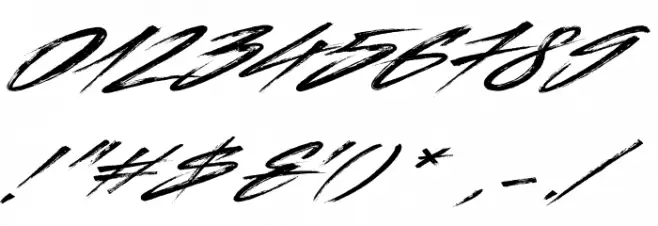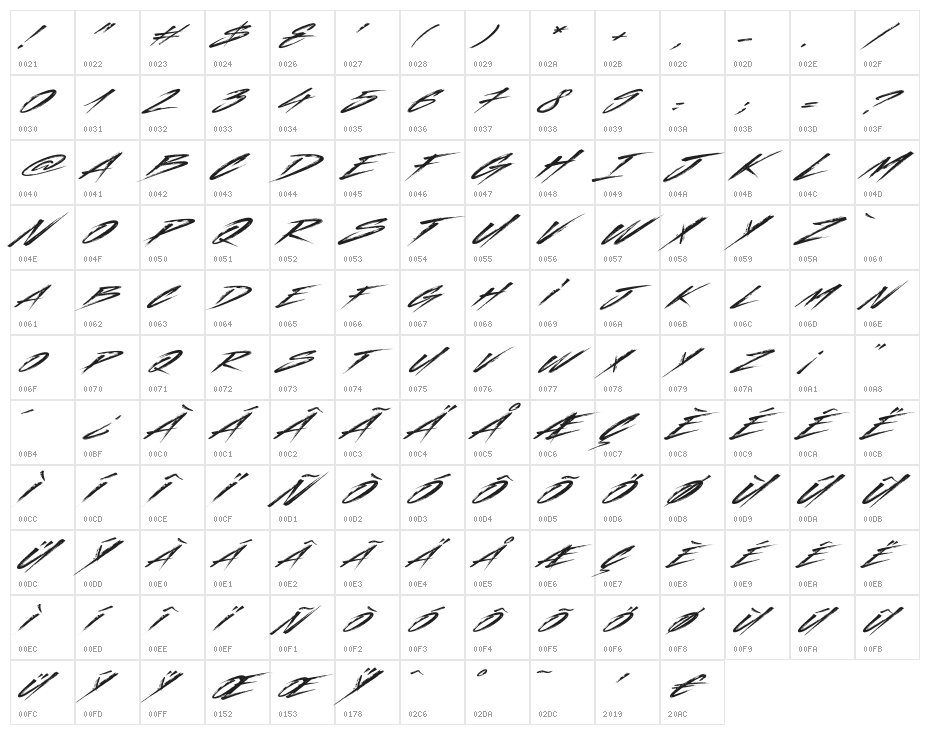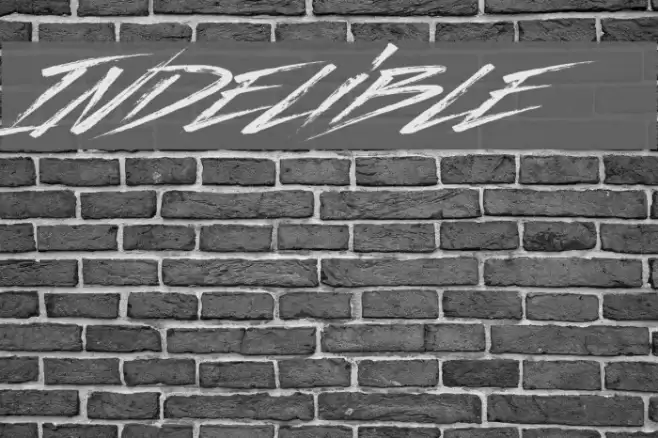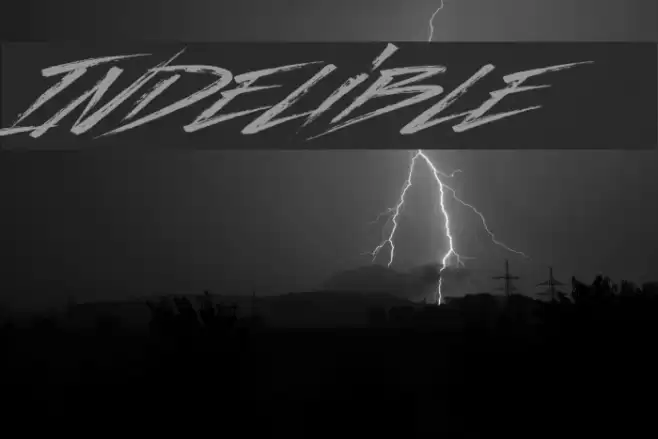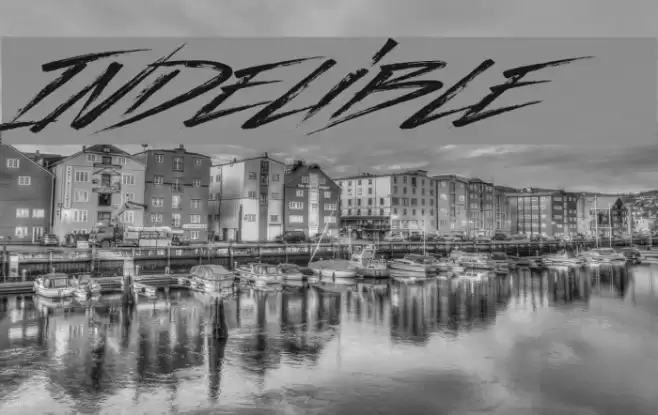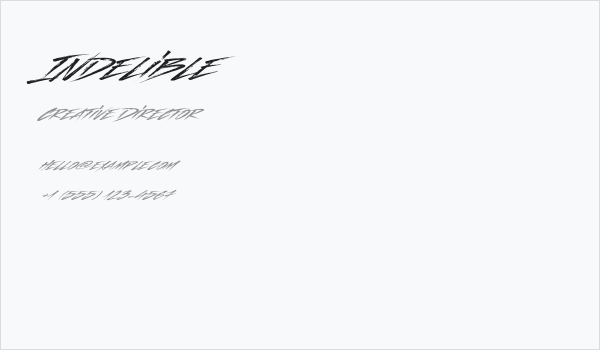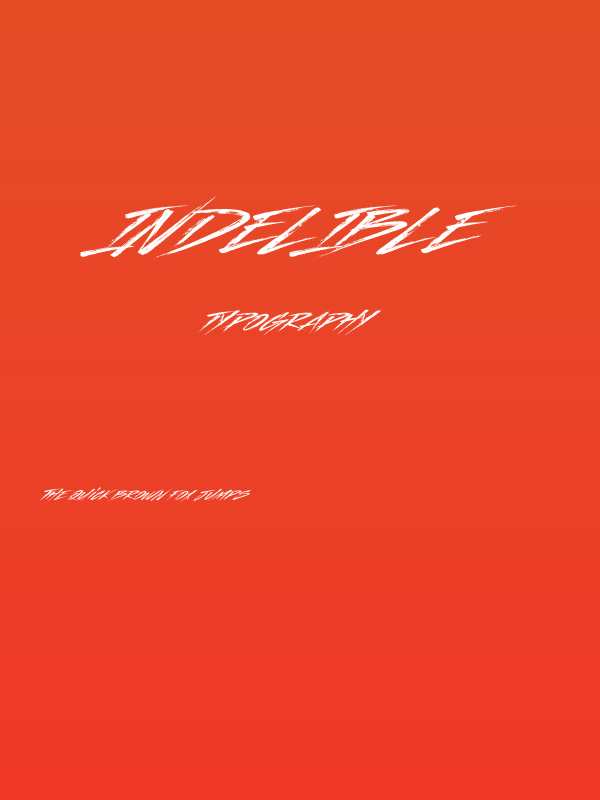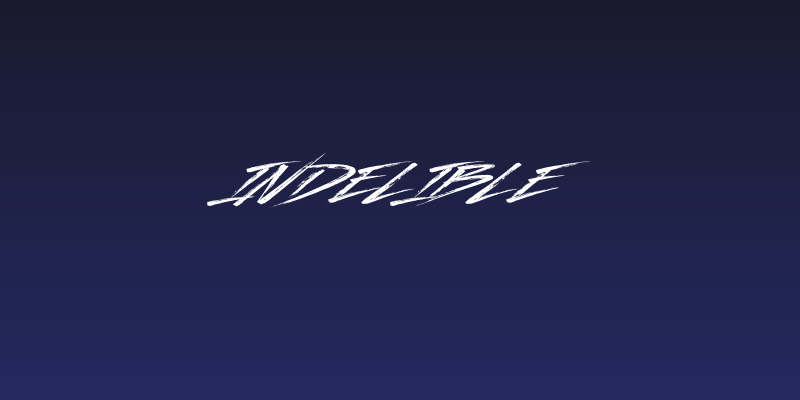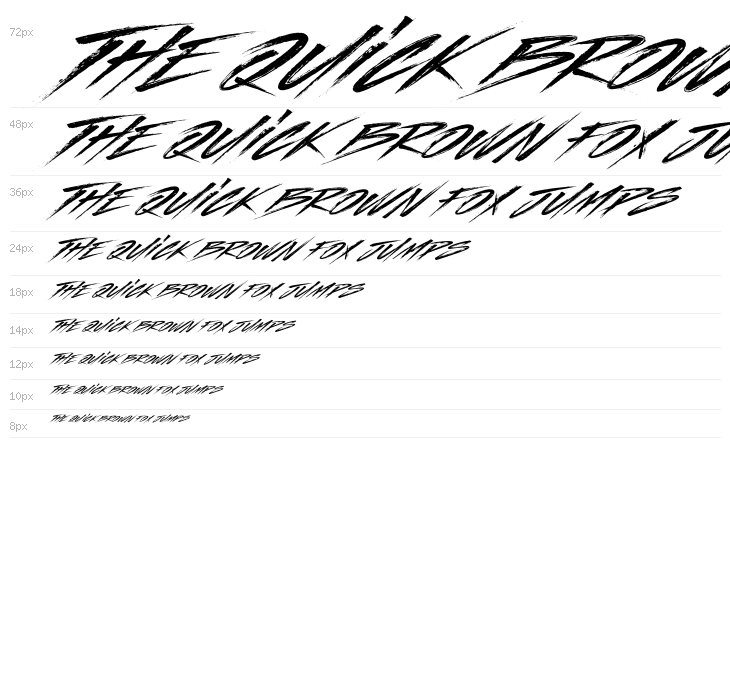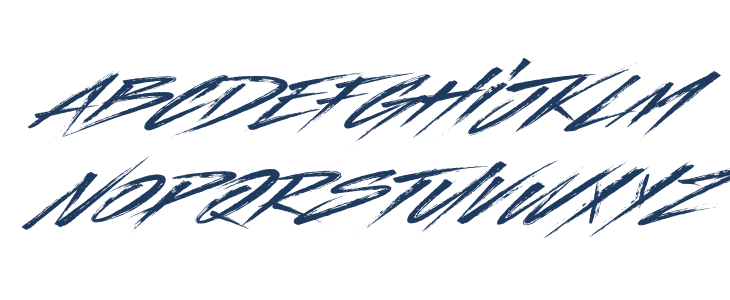
Indelible Font
Indelible Description
This font exudes a dynamic and energetic style, characterized by its bold, brush-like strokes that convey a sense of motion and intensity. The letters are sharply angled and slightly slanted, giving them a sense of urgency and flair. The rough, textured edges add a raw, artistic feel, reminiscent of graffiti or street art. The uppercase and lowercase letters maintain a consistent style, with a noticeable emphasis on the diagonal strokes. Numbers and special characters follow the same aesthetic, ensuring a cohesive look across all text elements.
| Proposed Projects | Ideal for projects that require a bold statement, such as posters, album covers, or branding for edgy, modern products. |